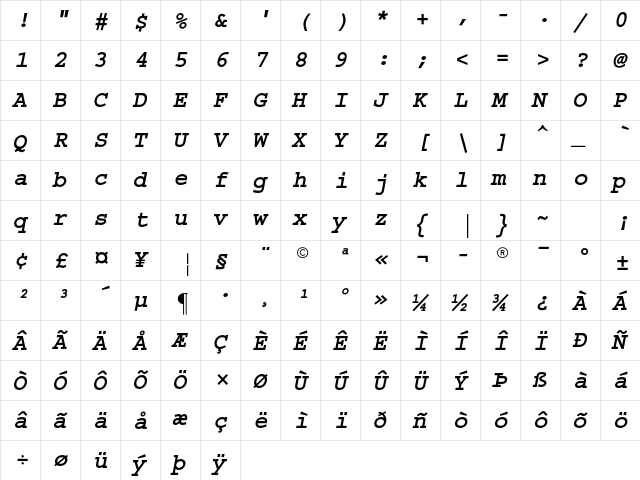
Courier Std Bold Oblique Font Preview
| Designer | Howard Kettler |
Design Context for Courier Std Typeface
Courier Std uses fixed-width spacing throughout, giving it the structured, systematic character associated with coding environments and technical documentation. The dynamic lean of this cut emphasises speed and emphasis in any layout. Its bold stroke weight gives it real presence on the page.